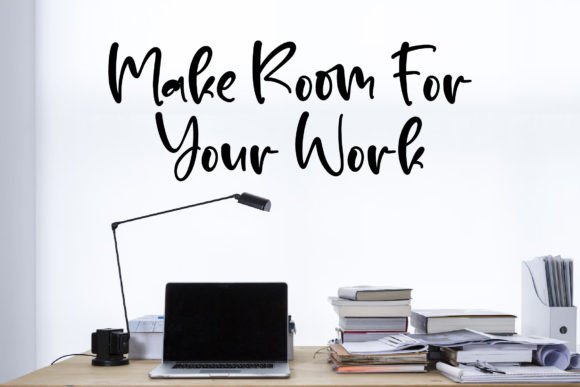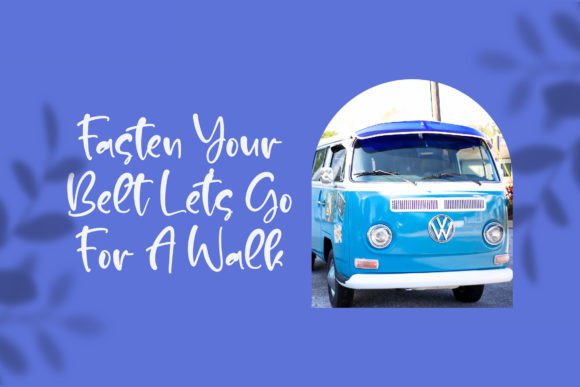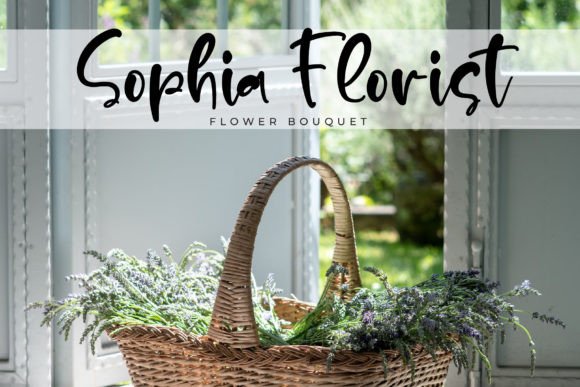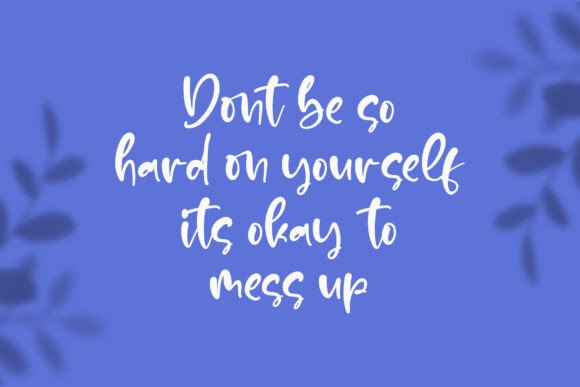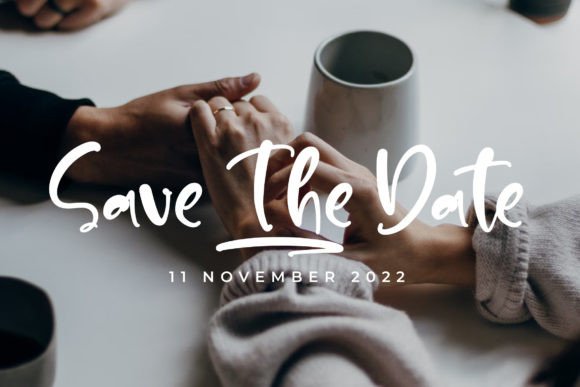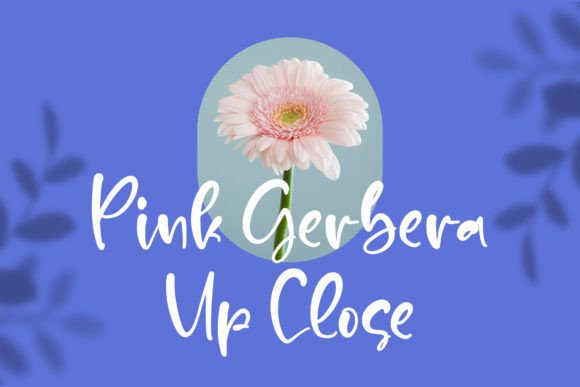
Introduction to Maldonado Font
As you sit down to plan your next creative project, you’re met with a blank page and a blank slate. The possibilities are endless, but the key to bringing your vision to life is often found in the smallest details. That’s where a high-quality font like the Maldonado Font comes in – a design resource that can elevate your entire aesthetic and add a touch of elegance to your work.
Whether you’re crafting wedding invitations, designing a logo, or simply looking for a unique way to express yourself, the Maldonado Font is a versatile and valuable tool in your creative toolkit. With its charming and refined feel, this font is perfect for designers seeking to add a handwritten touch to their work. And with its transparent background and PUA encoding, you’ll have access to all the glyphs and swashes you need to bring your creative project to life – all for free!
Key Features of Maldonado Font
- Unique, elegant script font with a transparent background, perfect for adding a touch of sophistication to designs.
- Includes a comprehensive character set, covering a wide range of languages and alphabets, making it a versatile design resource.
- Perfect for use in logo design, typography, and other creative projects where a high-end, elegant font is required.
Honest Review: Maldonado Font
I recently had the chance to work with the Maldonado Font, and I must say, it’s been a game-changer for my design projects. This free download has been a hidden gem in the design community, offering high-quality typography that’s perfect for creative projects.
- What works well: ✨ The font’s elegant and sophisticated design makes it ideal for luxury branding and high-end publications. The transparent background option also allows for seamless integration with any design element.
- What works well: ✨ The Maldonado Font is incredibly versatile, suitable for a wide range of design applications, from business cards to websites and magazines.
However, there are a few limitations to consider: ⚠️ The font’s design may not be suitable for more casual or playful projects, as it leans towards a more formal and professional aesthetic. Additionally, the font may require some tweaking to achieve the perfect balance of spacing and kerning.
Overall, I’m thoroughly impressed with the Maldonado Font. It’s a valuable design resource that’s sure to elevate any creative project. With its high-quality typography and transparent background option, it’s a must-have for any designer looking to take their designs to the next level.
Common Use Cases for Maldonado Font
The Maldonado Font is ideal for use in creative projects such as graphic design, digital art, and typography. It’s also suitable for use in presentations, reports, and other business documents where a unique and stylish font is required.